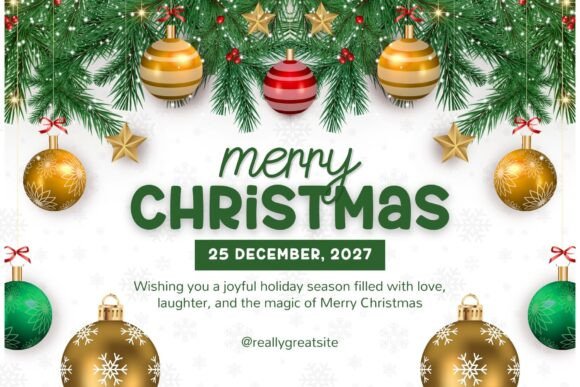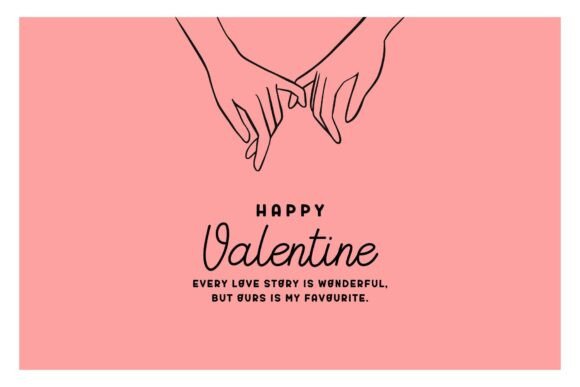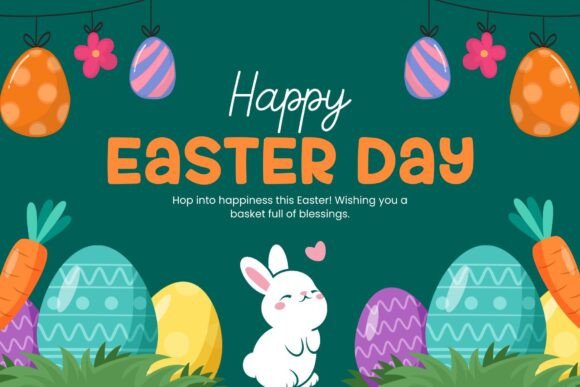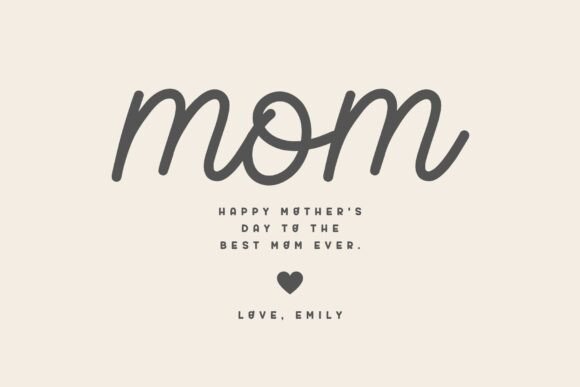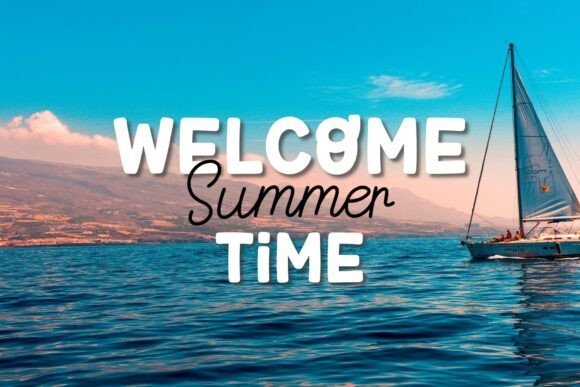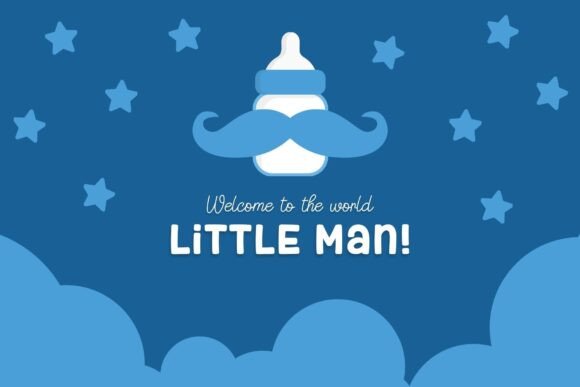
Introduction to Fox Whirly & Fox Rosalia Font
Fox Whirly & Fox Rosalia – A Playful Font Duo Bring joy and charm to your designs with Fox Whirly & Fox Rosalia, a delightful font duo that perfectly blends bold fun with handwritten elegance.
Fox Whirly is a chunky, whimsical display font full of personality Its playful curves and rounded edges make it ideal for children’s designs, greeting cards, packaging, and eye-catching headlines.
Fox Whirly & Fox Rosalia Font offers exceptional quality and versatility, making it a valuable addition to your design toolkit. Whether you’re creating for personal projects or commercial use, Fox Whirly & Fox Rosalia Font delivers professional results.